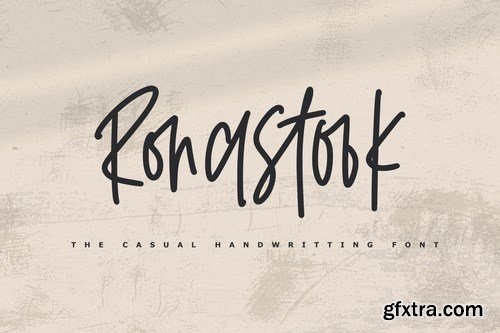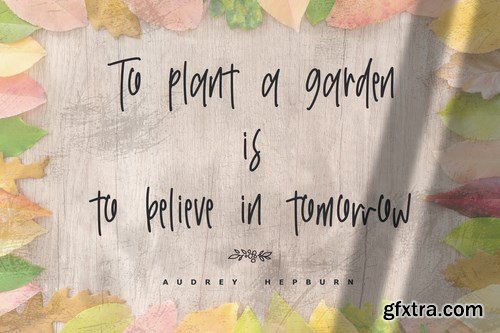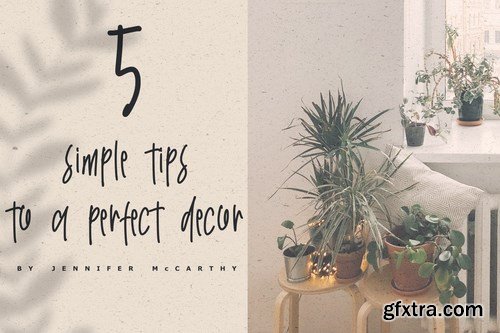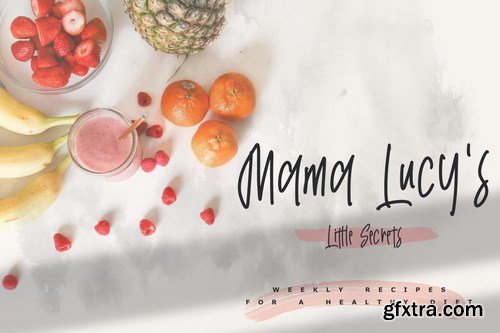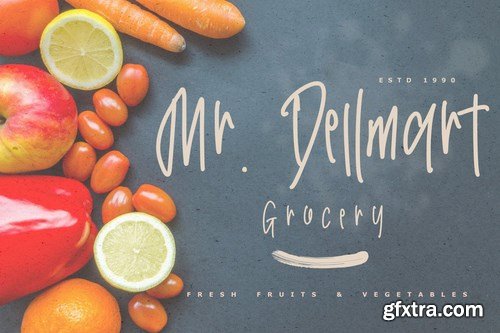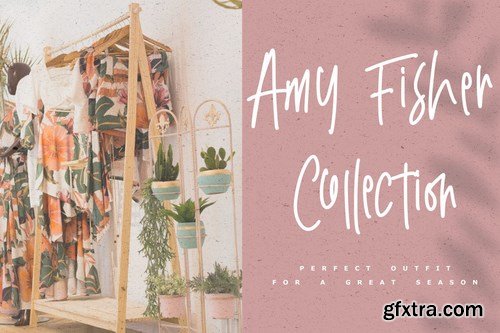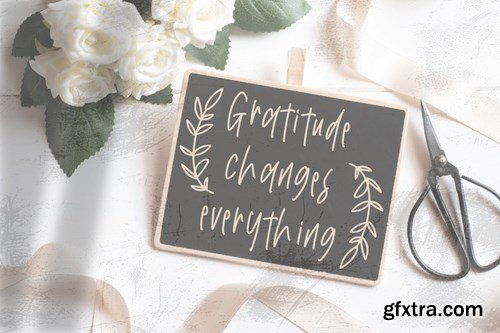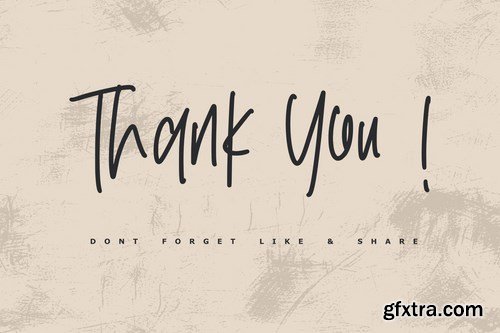
Ronastook - Minimal Handwritting Font
Ronastook - Minimal Handwritting Font, every single letter has been carefully crafted to make your text looks beautiful. it's perfect for logos, name card, magazine layouts, invitations, headers, or even large-scale artwork.